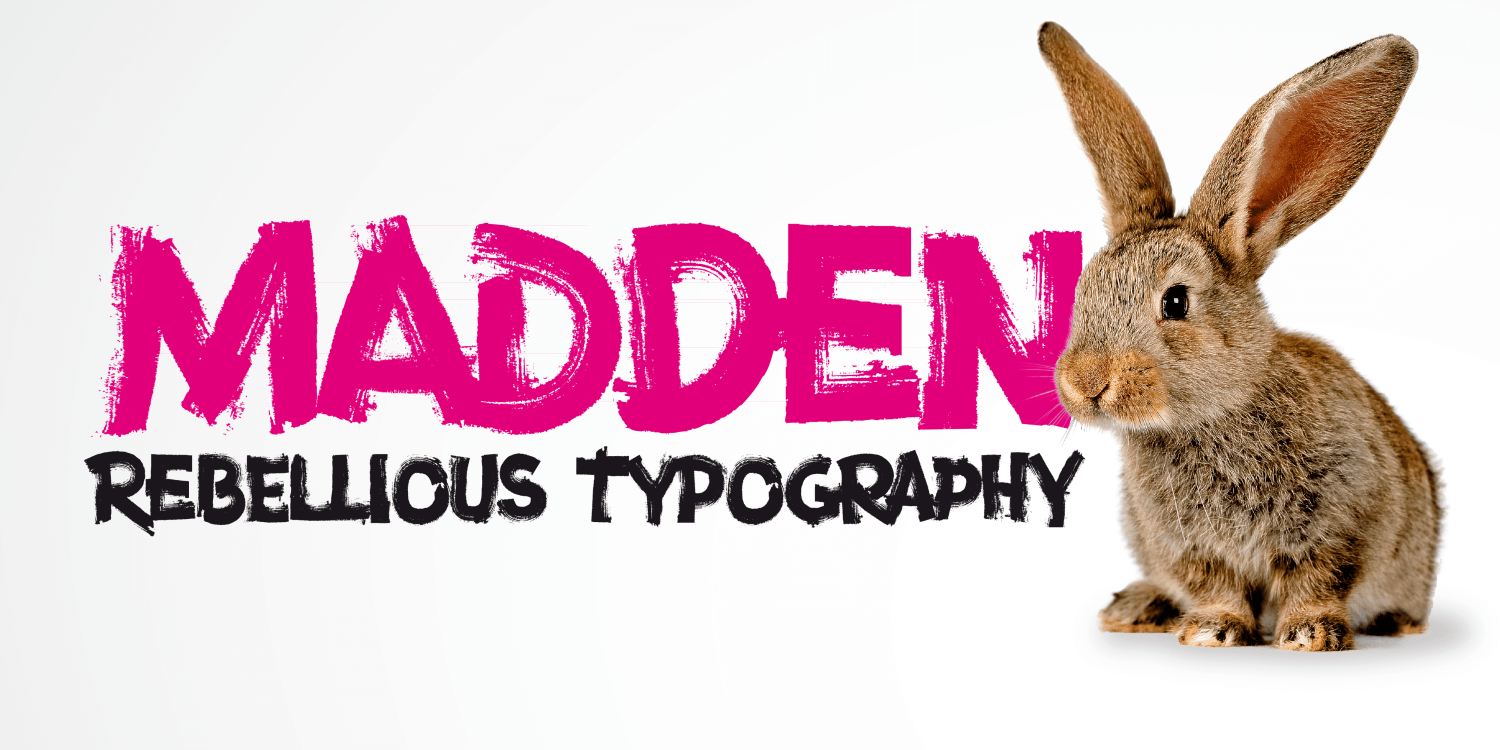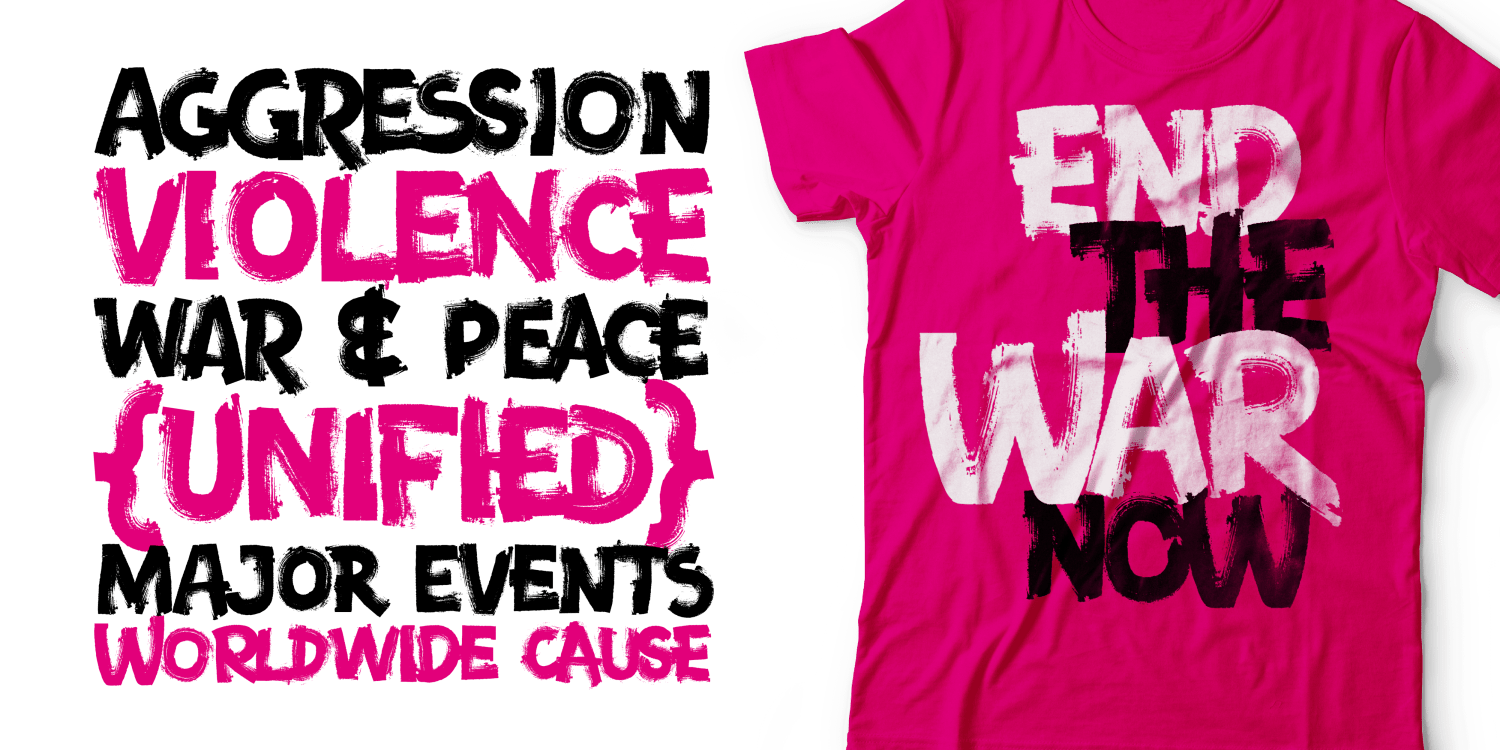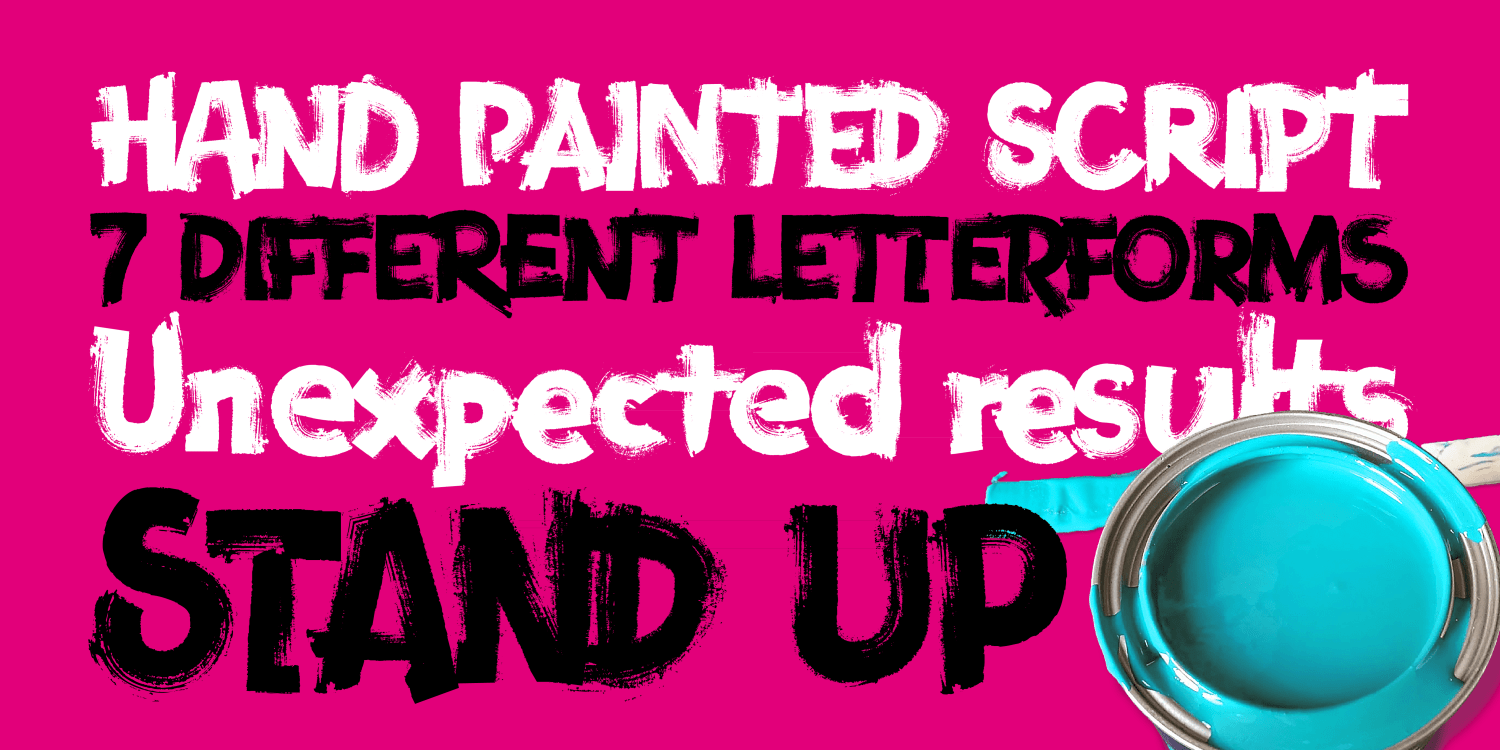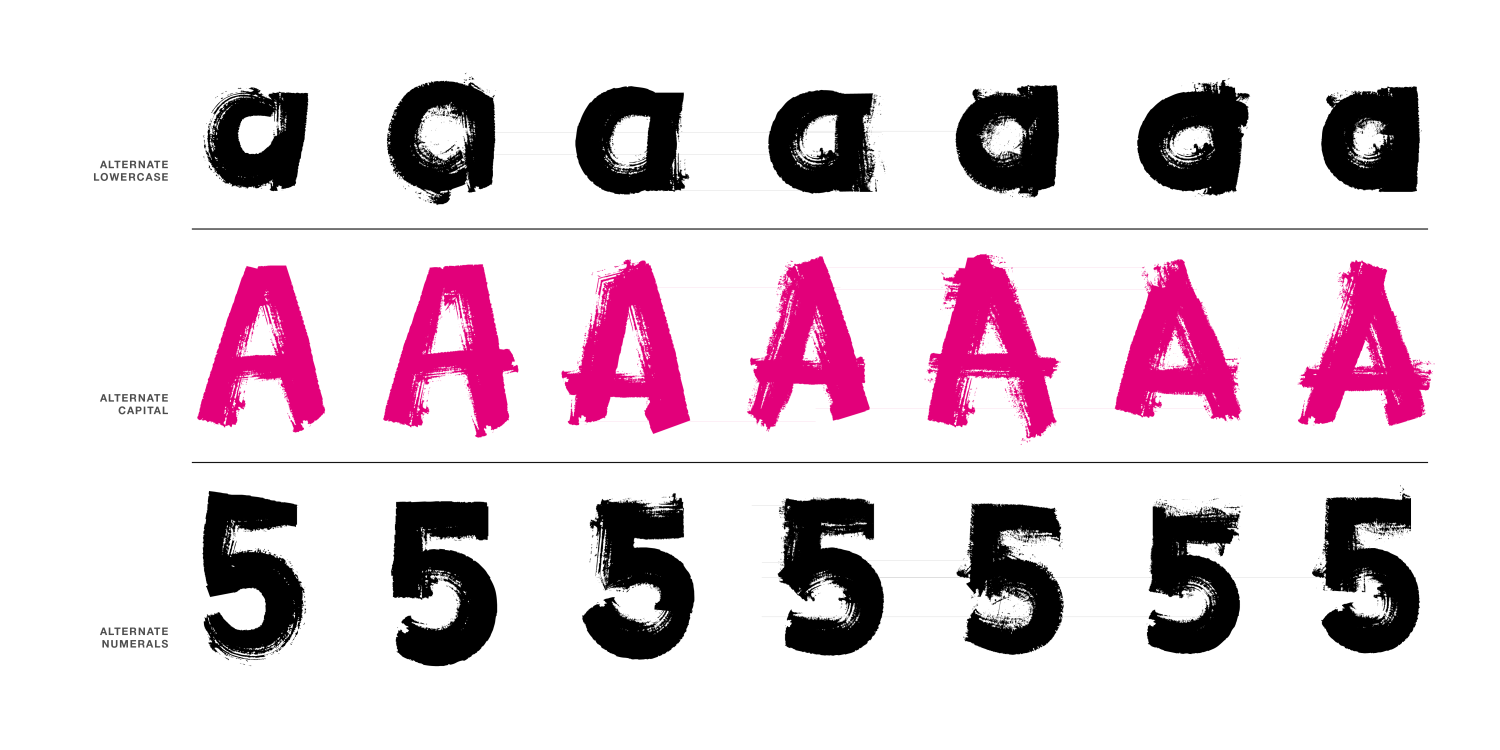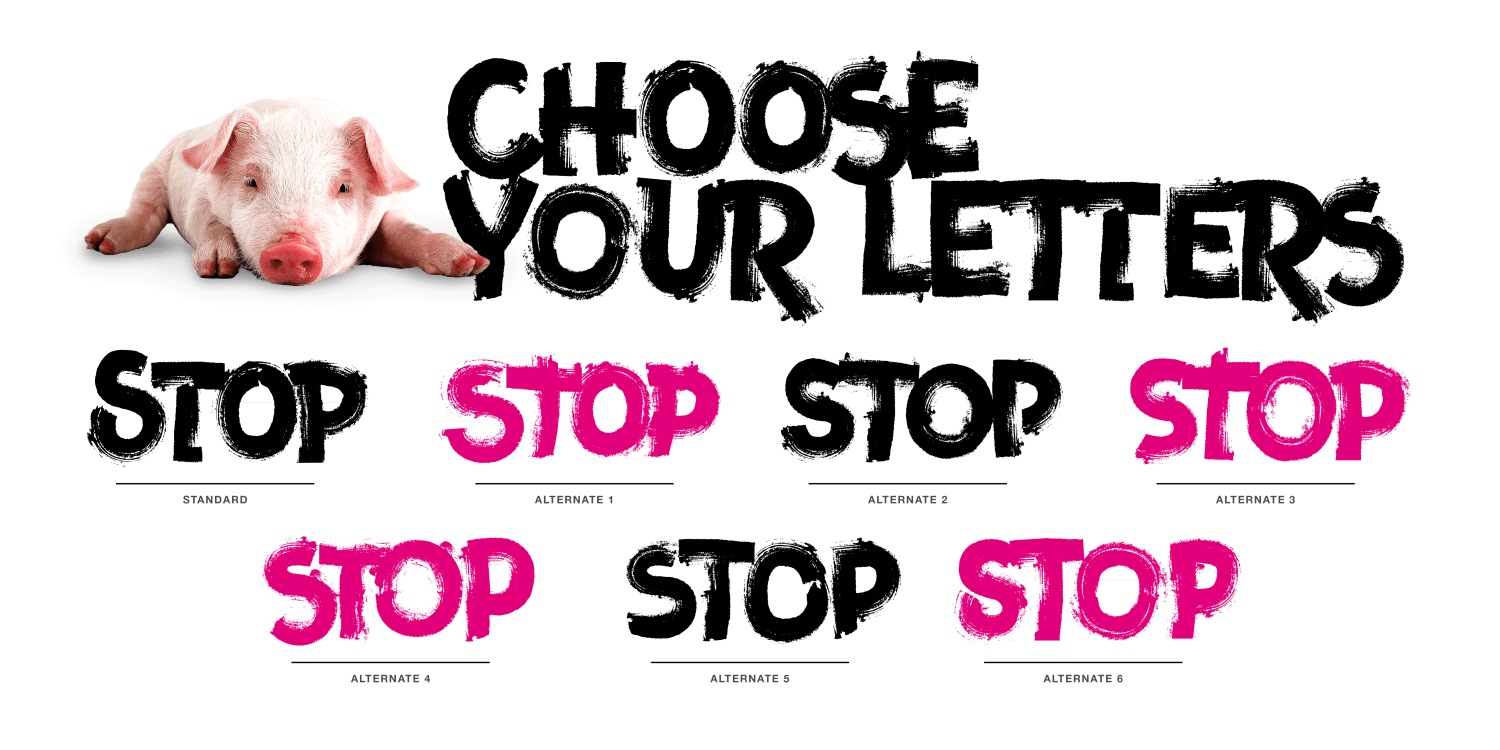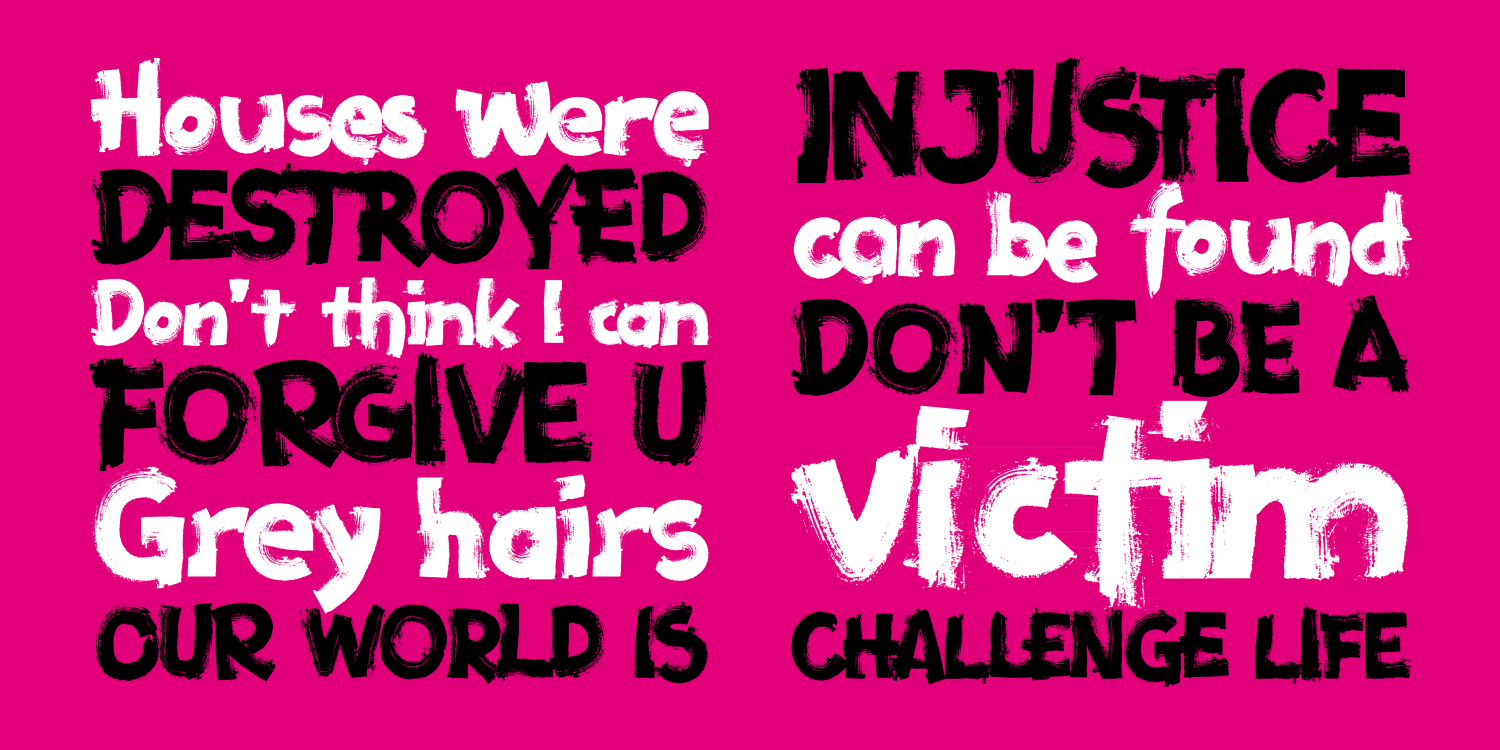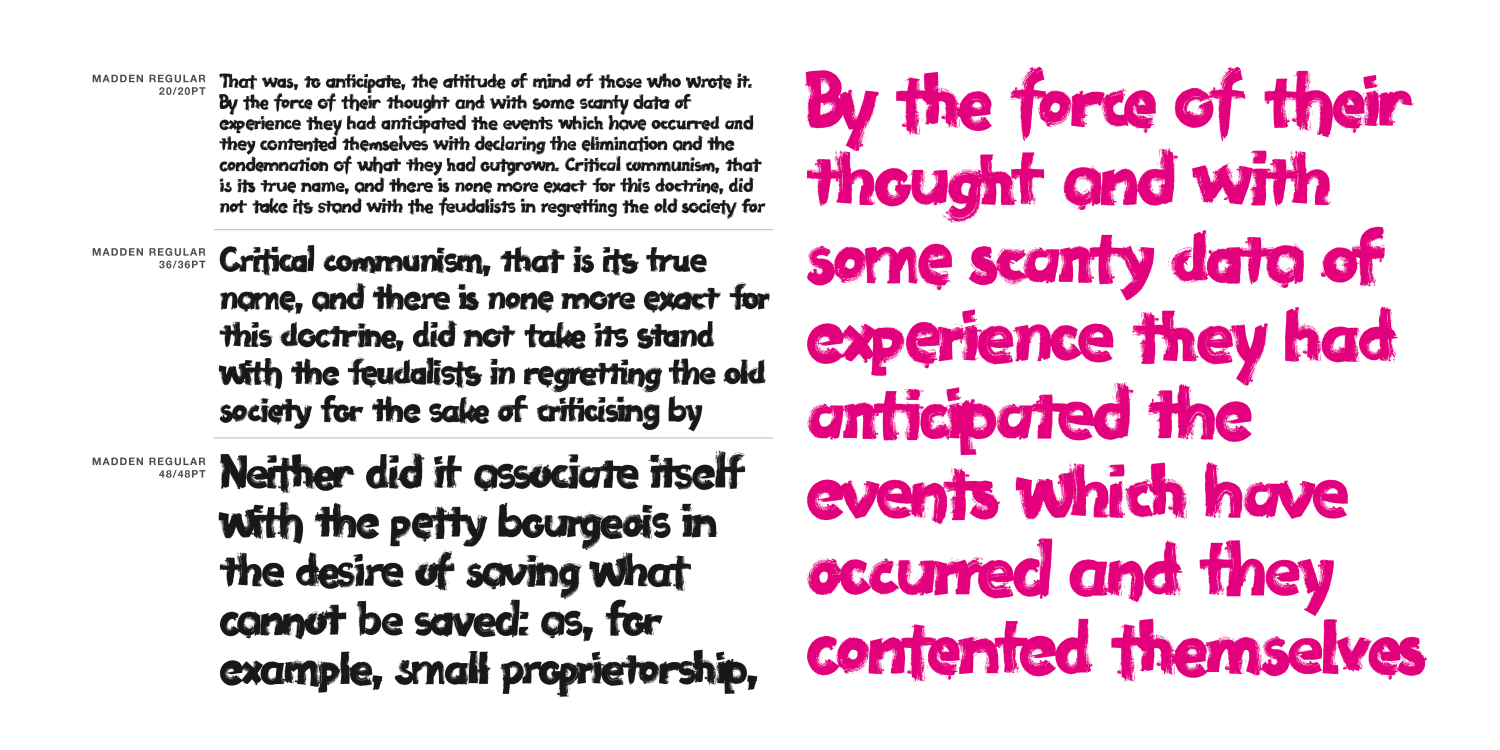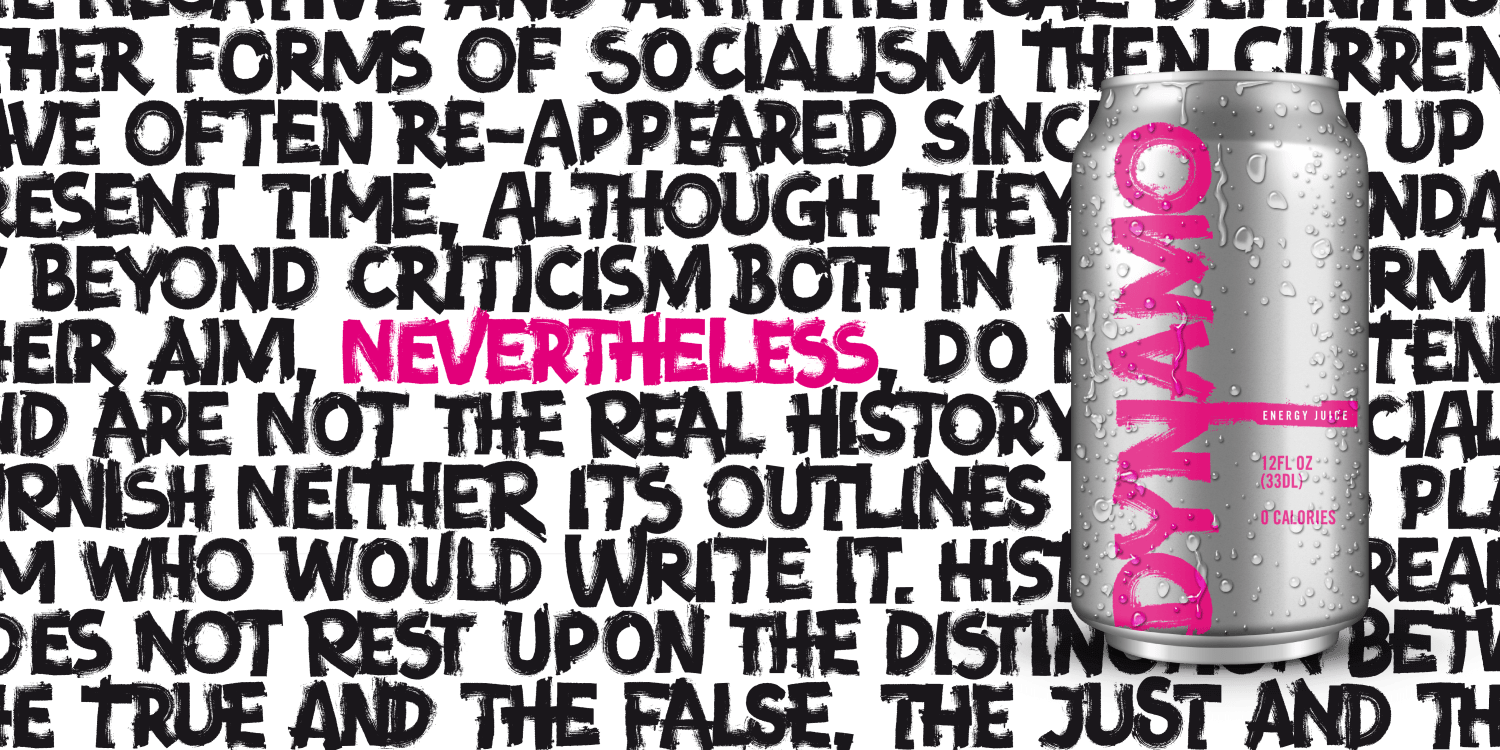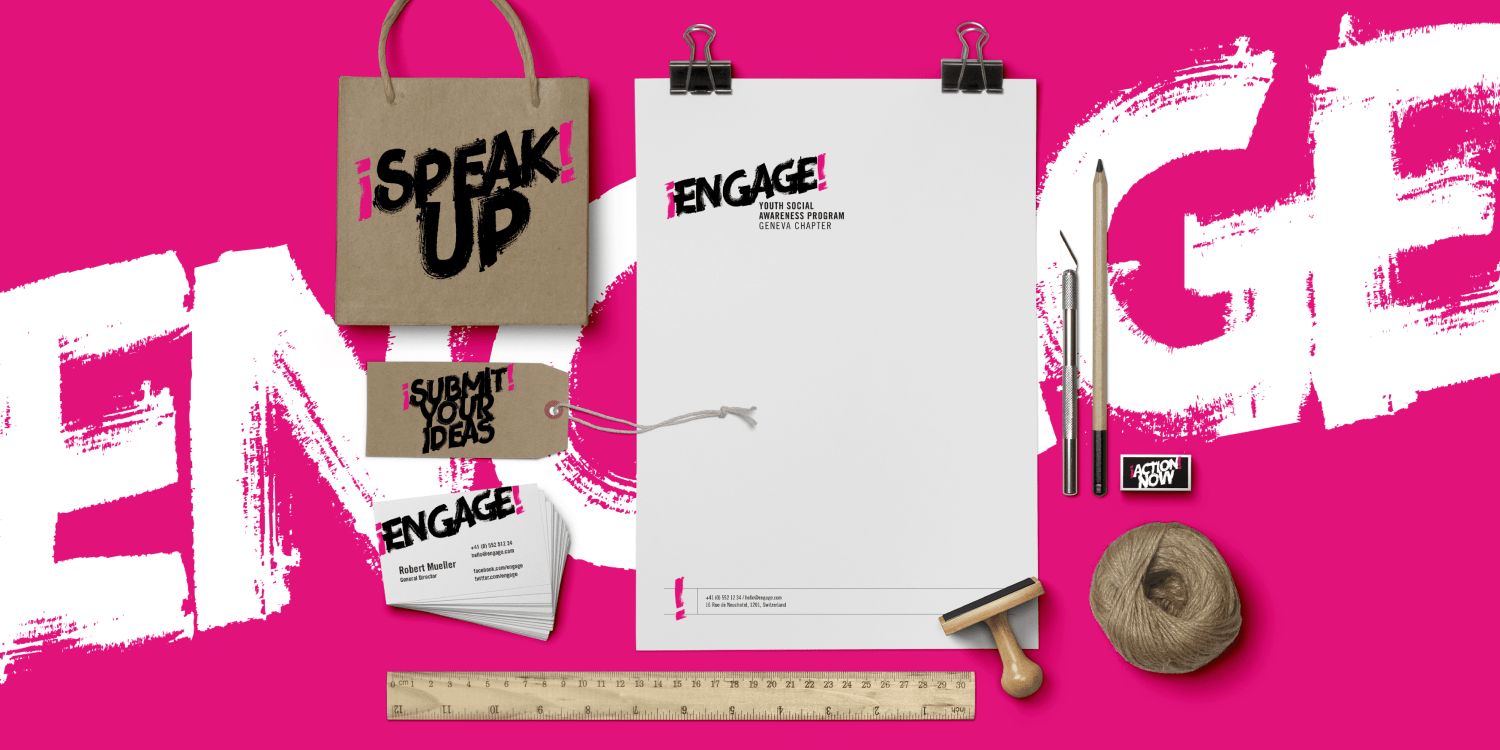
Madden
Font Family by Typogama
Madden is a bold, single weight typeface designed for use in titles, editorial design, branding or any other setting that requires capturing attention. With a bold, rugged stroke, inspired by the wide brush used in hand made protest signs, this typeface exploits Opentype features to randomly replace letters set in a line of text, thereby simulating the erratic and irregular letterforms that could be create by a manual writing. Madden is designed to give you an expressive and impactful typeface that will grab attention and shout your message.